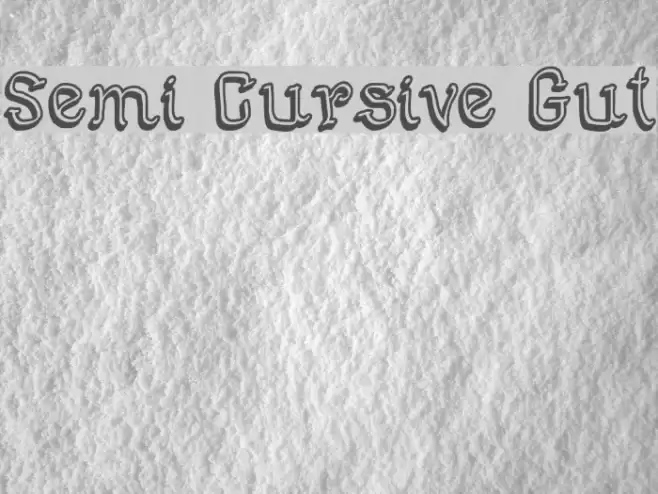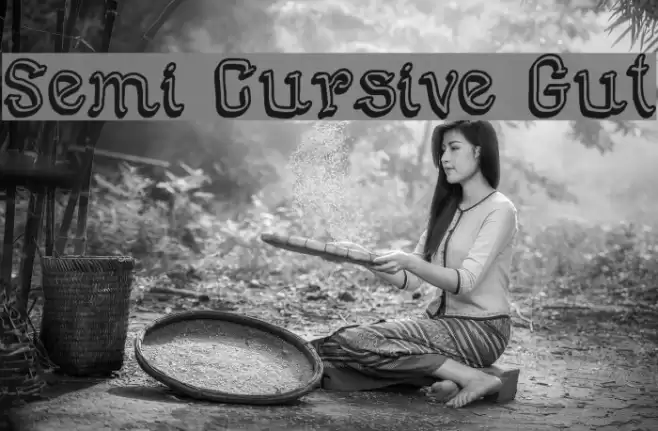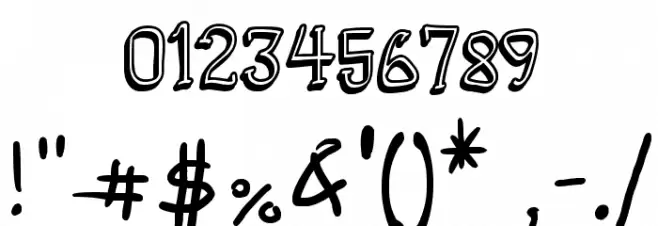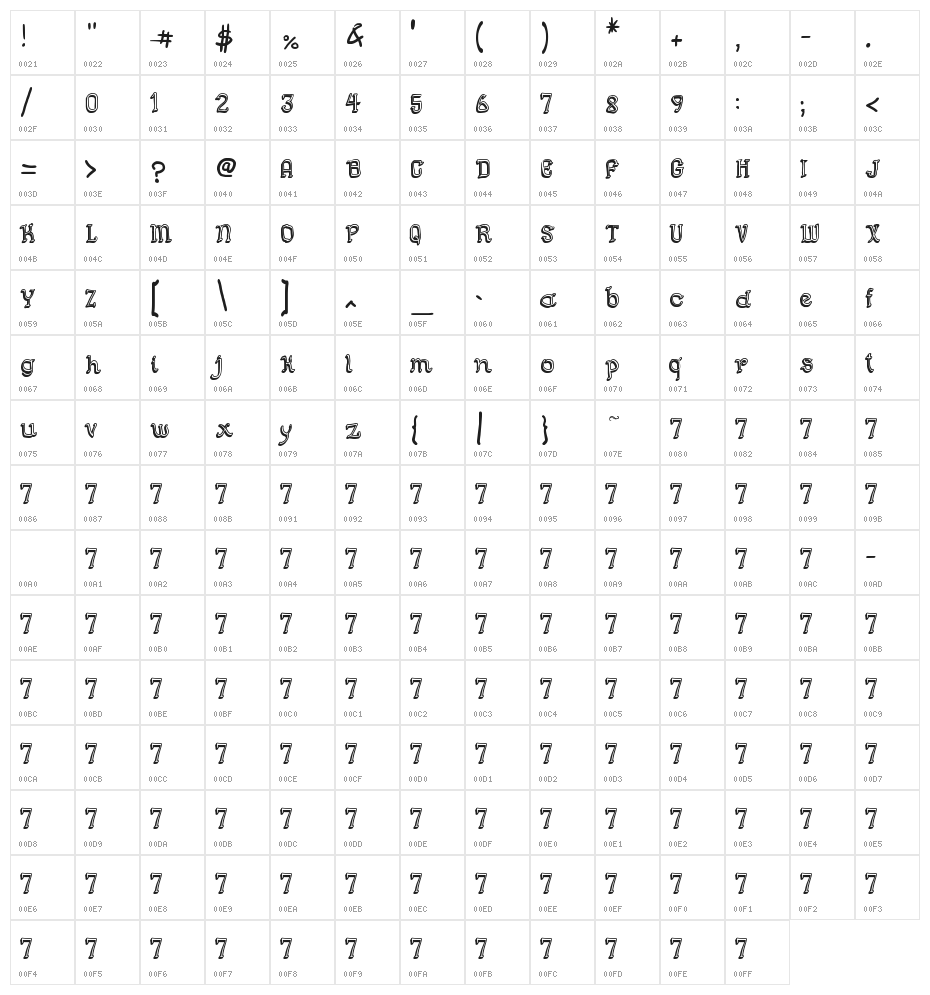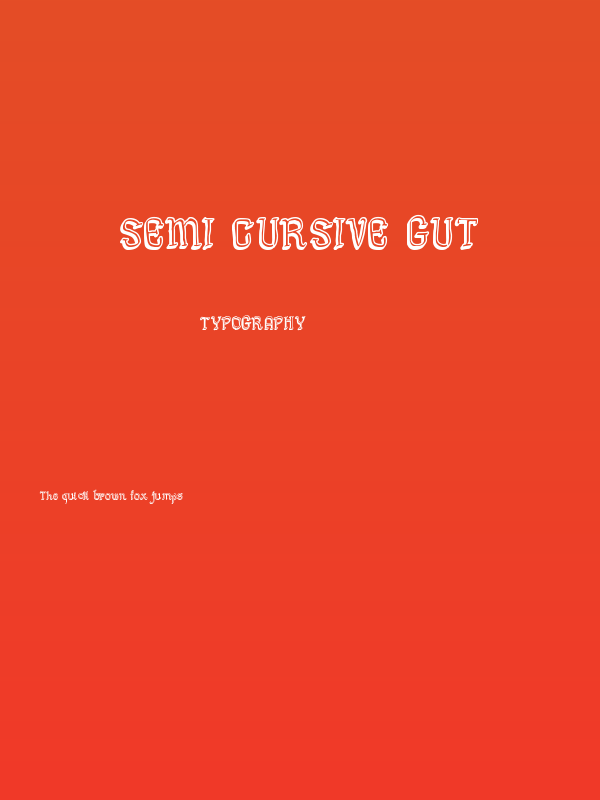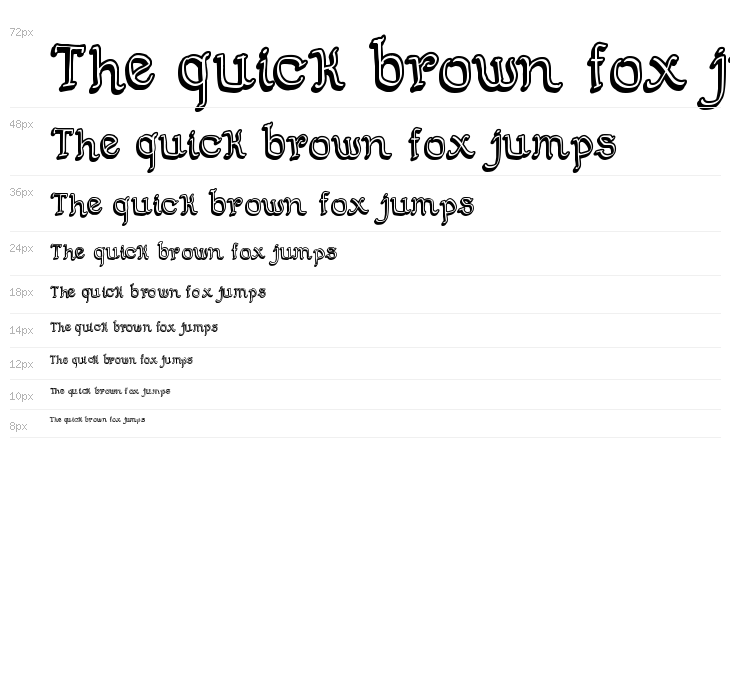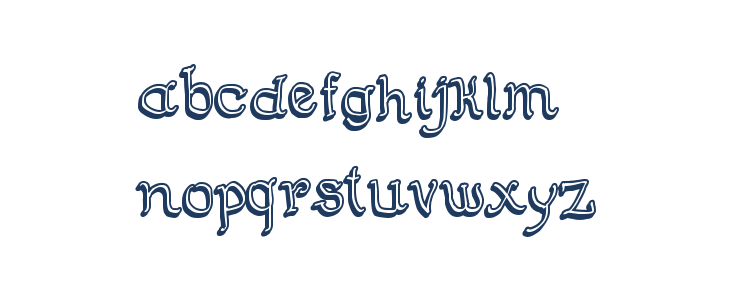
Semi Cursive Gut Font
Semi Cursive Gut Description
This font features a semi-cursive style with a playful and decorative flair. The characters are outlined with a bold, black stroke, giving them a cartoonish and lively appearance. Each letter has a unique, hand-drawn quality, with slight variations in stroke width that add to its charm. The uppercase letters are bold and prominent, while the lowercase letters maintain a consistent flow, enhancing readability. The numerals are equally stylized, matching the whimsical nature of the alphabet. Special characters are included, maintaining the same bold outline and playful design, making this font versatile for various creative projects.
A playful, semi-cursive font with bold outlines and a hand-drawn aesthetic from Comic fonts.
- Proposed Projects: Ideal for children's books, comic strips, playful branding, and creative posters.